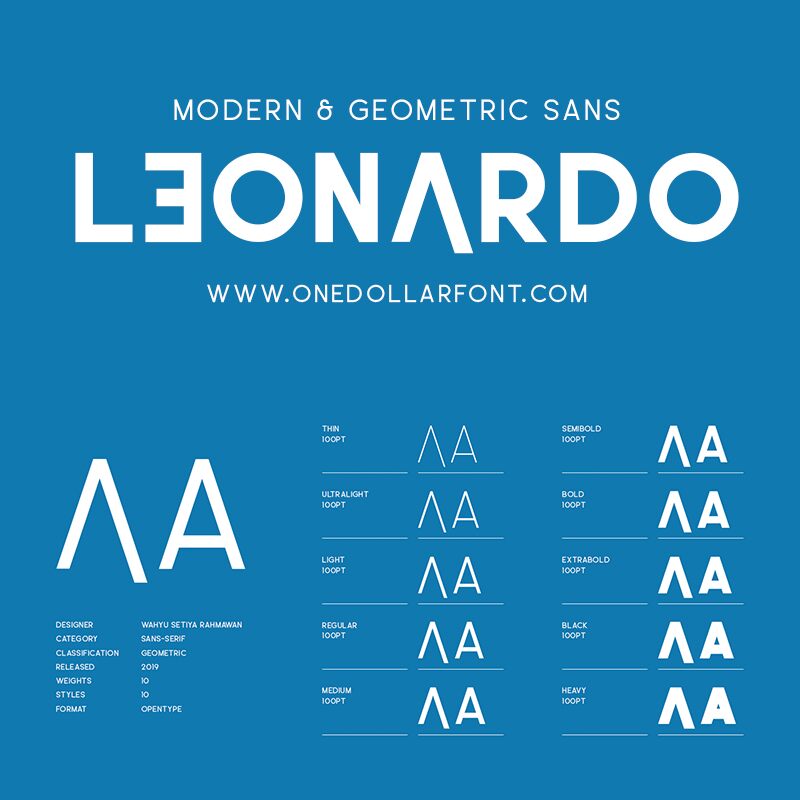
LeonardoSemiRoundedDemo
Leonardo is a modern sans serif with a geometric touch. It comes in 10 weights, clean and modern caps, thereby creating more variability. The thin & bold weights are free of charge, so you can use them to your hearts content.
Designed with powerful opentype features in mind. Each weight includes extended language support, fractions, tabular figures, arrows, ligatures and more. Perfectly suited for graphic design and any display use. It could easily work for web, signage, corporate as well as for editorial design.
Weights:
Thin, UltraLight, Light, Regular, Medium, SemiBold, Bold, ExtraBold, Black, Heavy